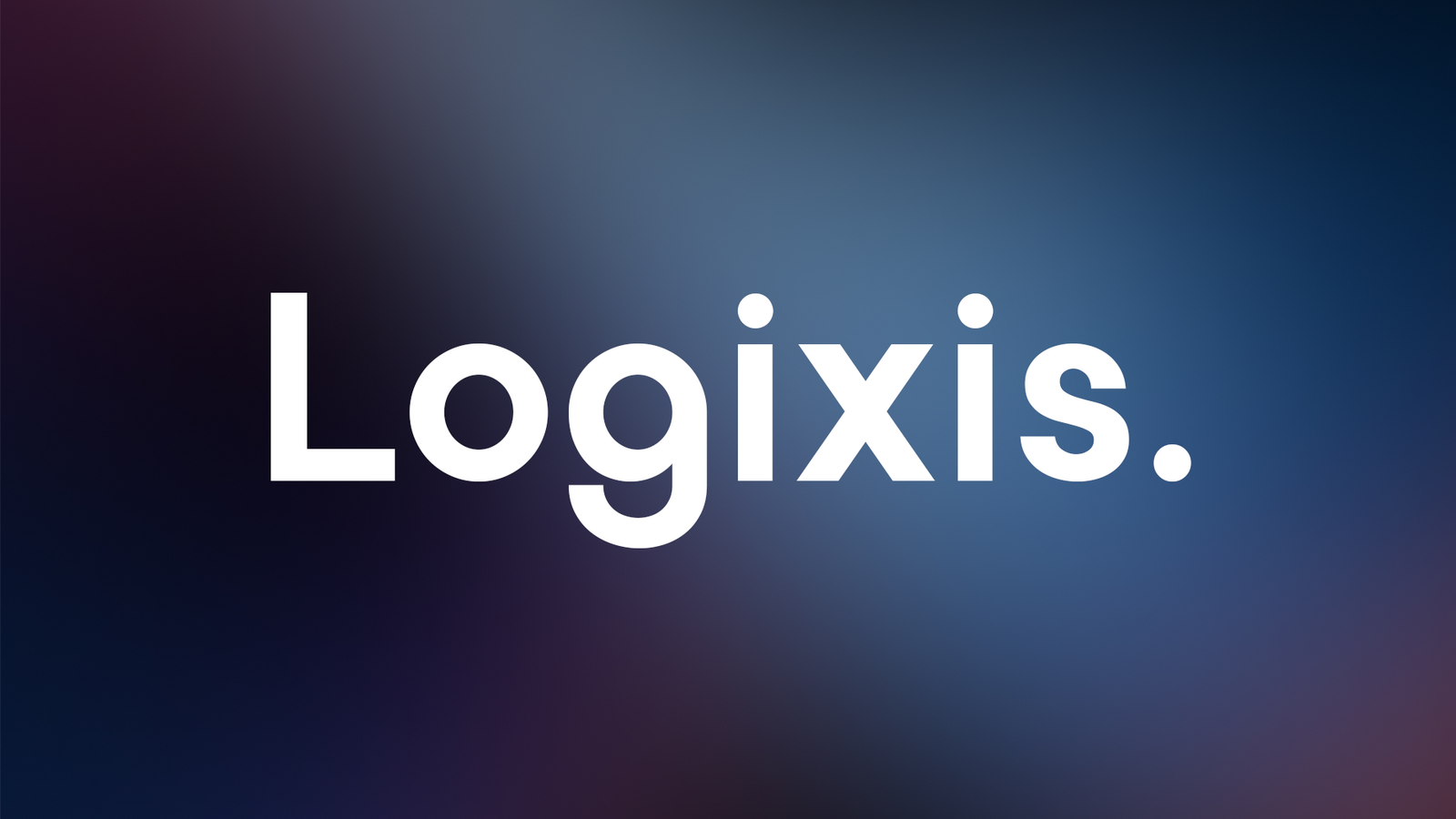
Display fonts are designed to grab attention and make a bold statement in any design project. Whether you're creating eye-catching headlines, posters, advertisements, or social media graphics, the right display font can elevate your visuals and add personality to your content. Our collection of free display fonts includes a variety of styles, from modern and futuristic to vintage, retro, and decorative typefaces. These fonts are perfect for logos, banners, product packaging, and branding materials, helping your designs stand out with unique typography. Available in high-quality TTF and OTF formats, our free display fonts ensure versatility and ease of use across different design platforms. Whether you prefer elegant serif styles, bold sans-serif, or artistic script fonts, you'll find the perfect typeface to enhance your creative projects. Download stunning display fonts today and make your designs more impactful!